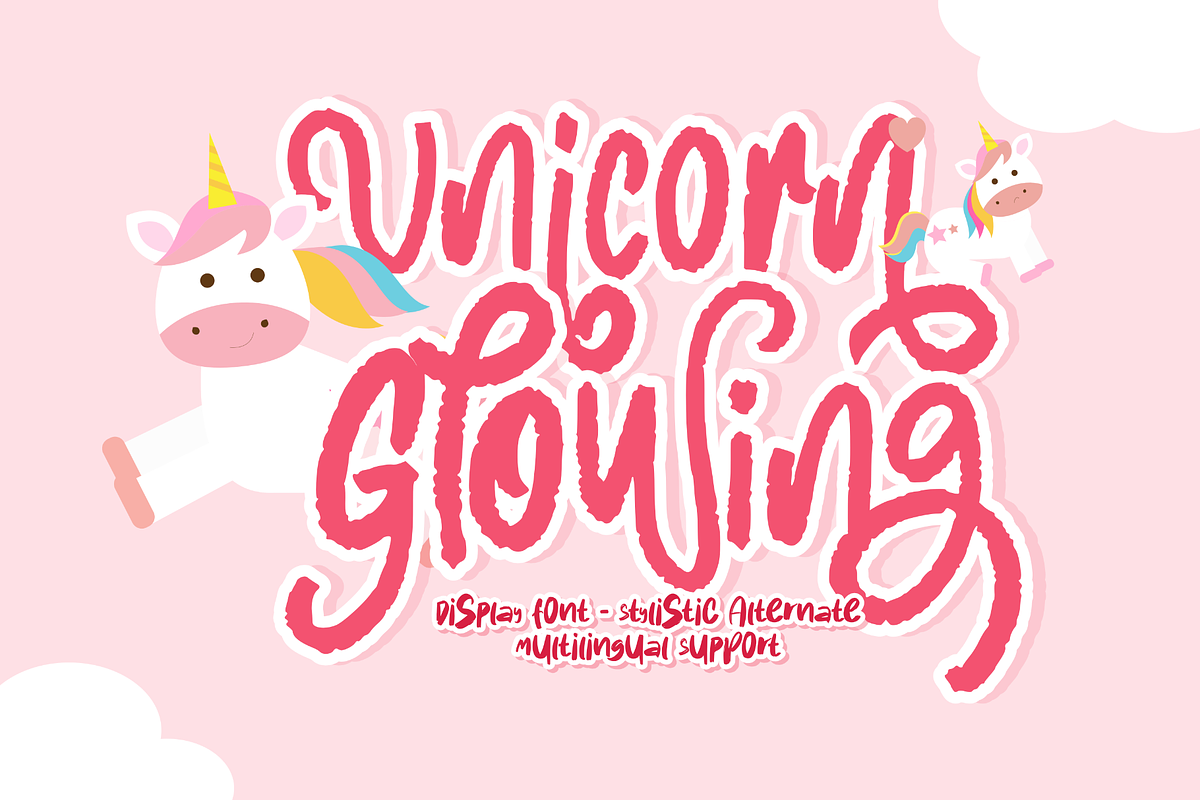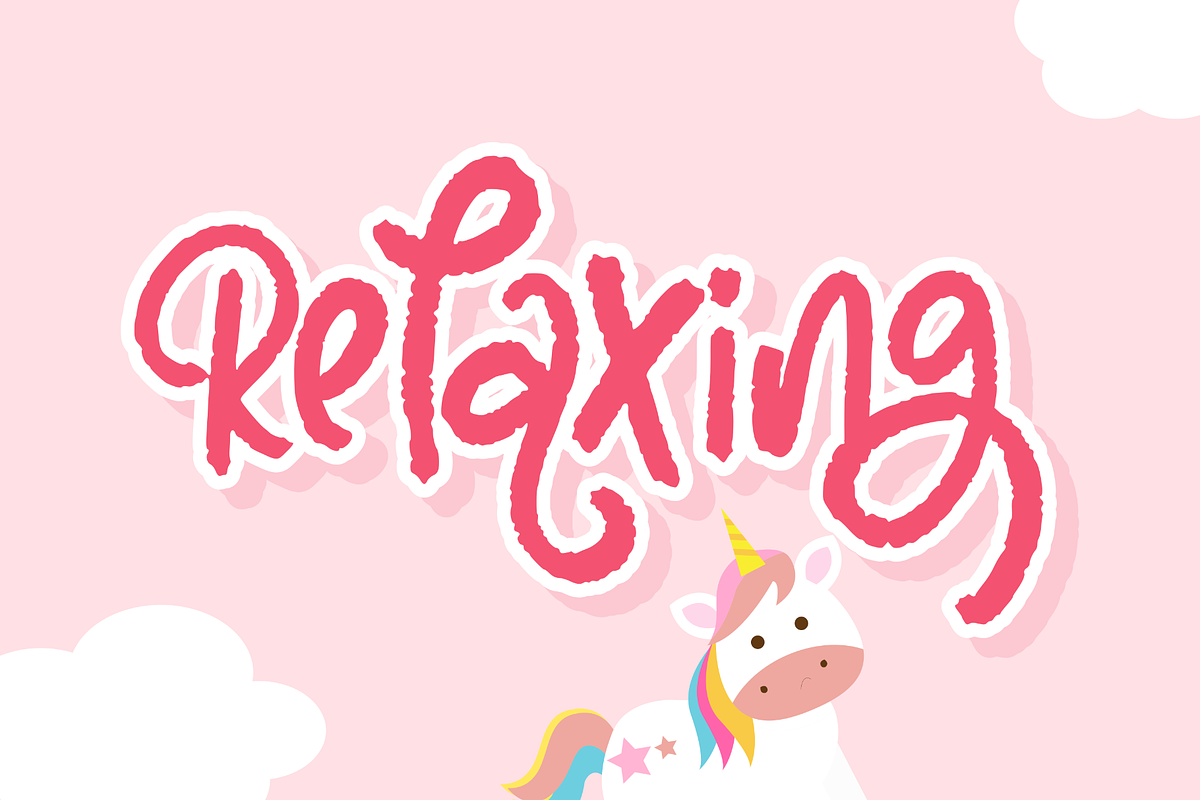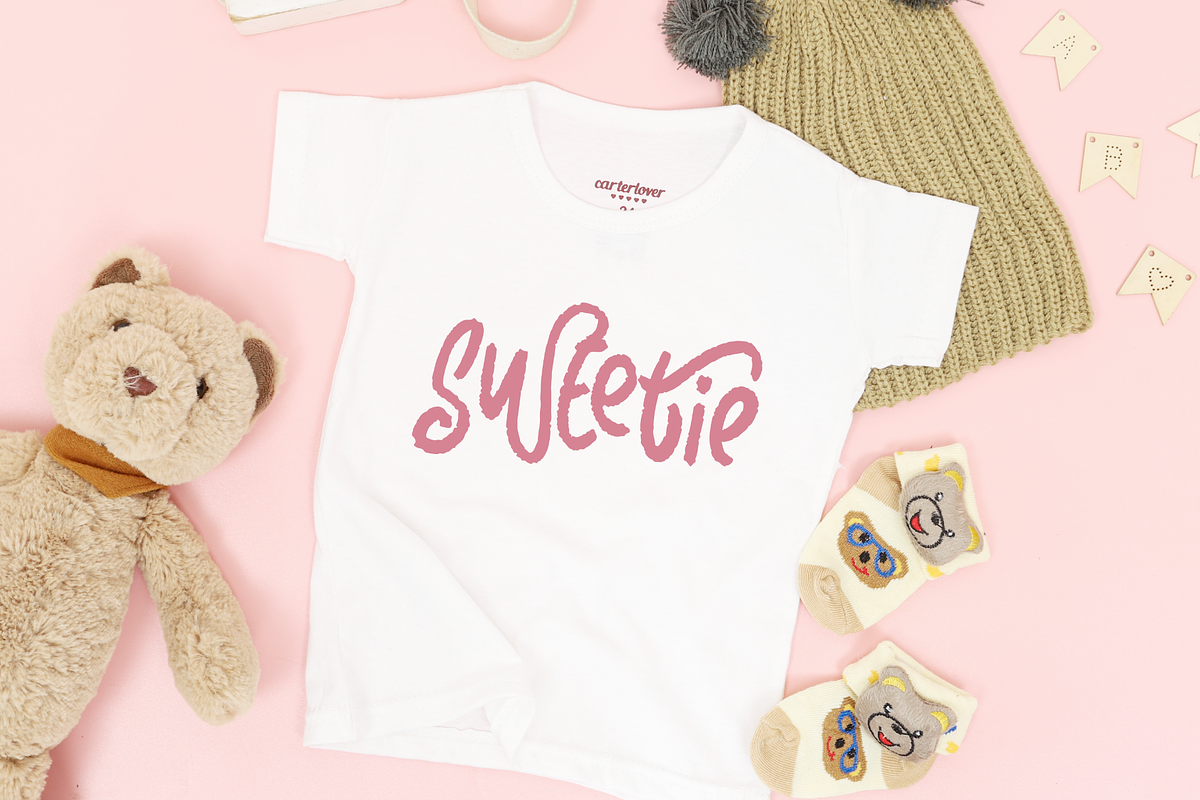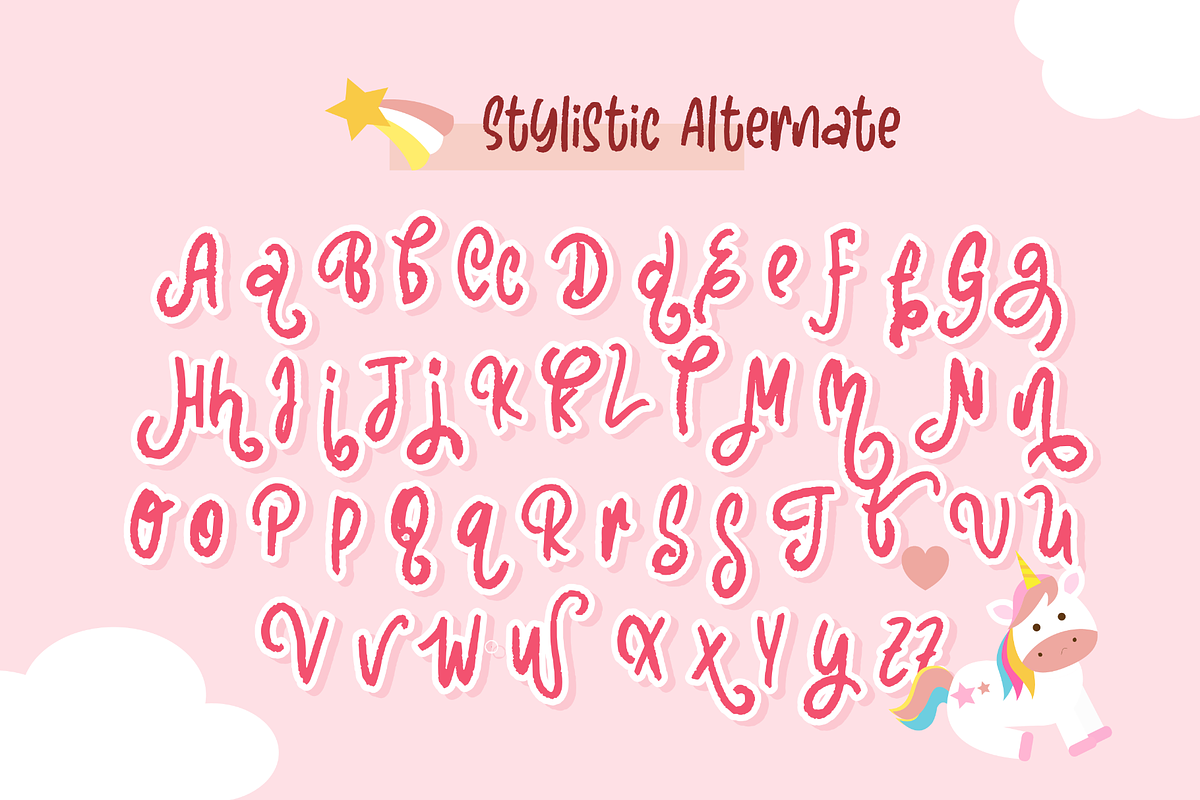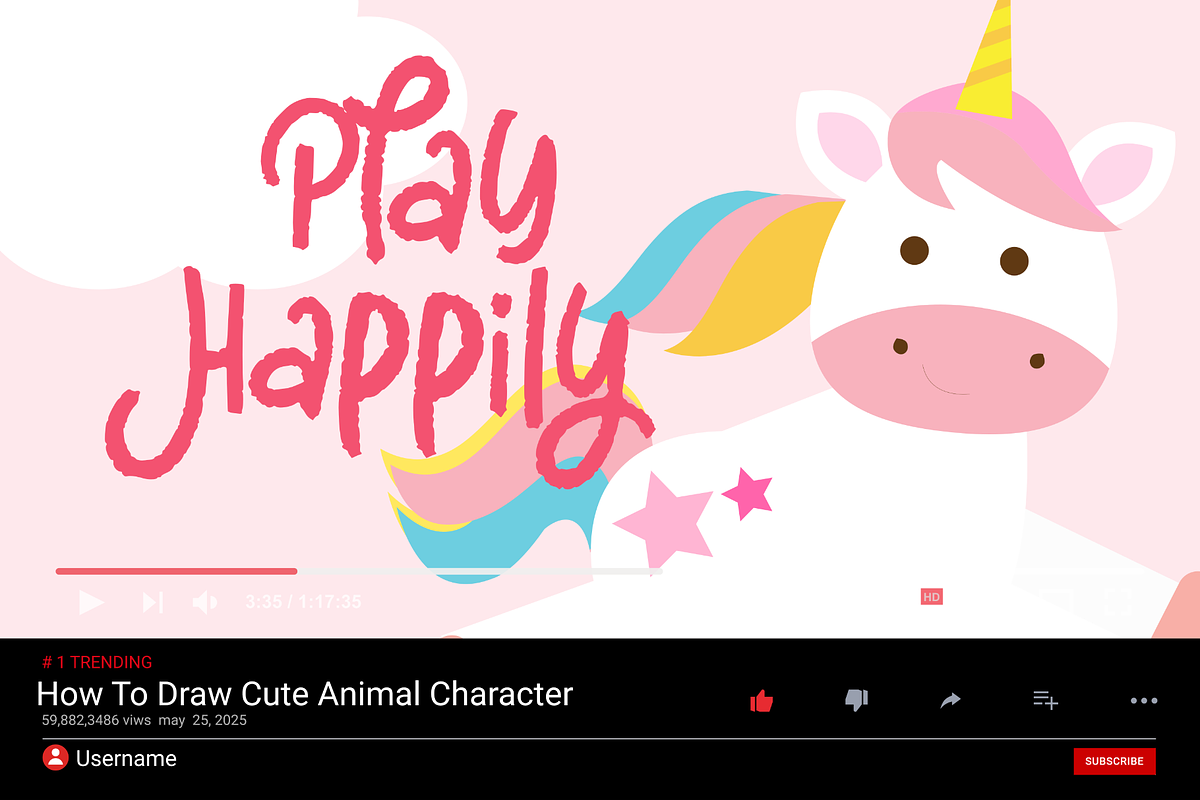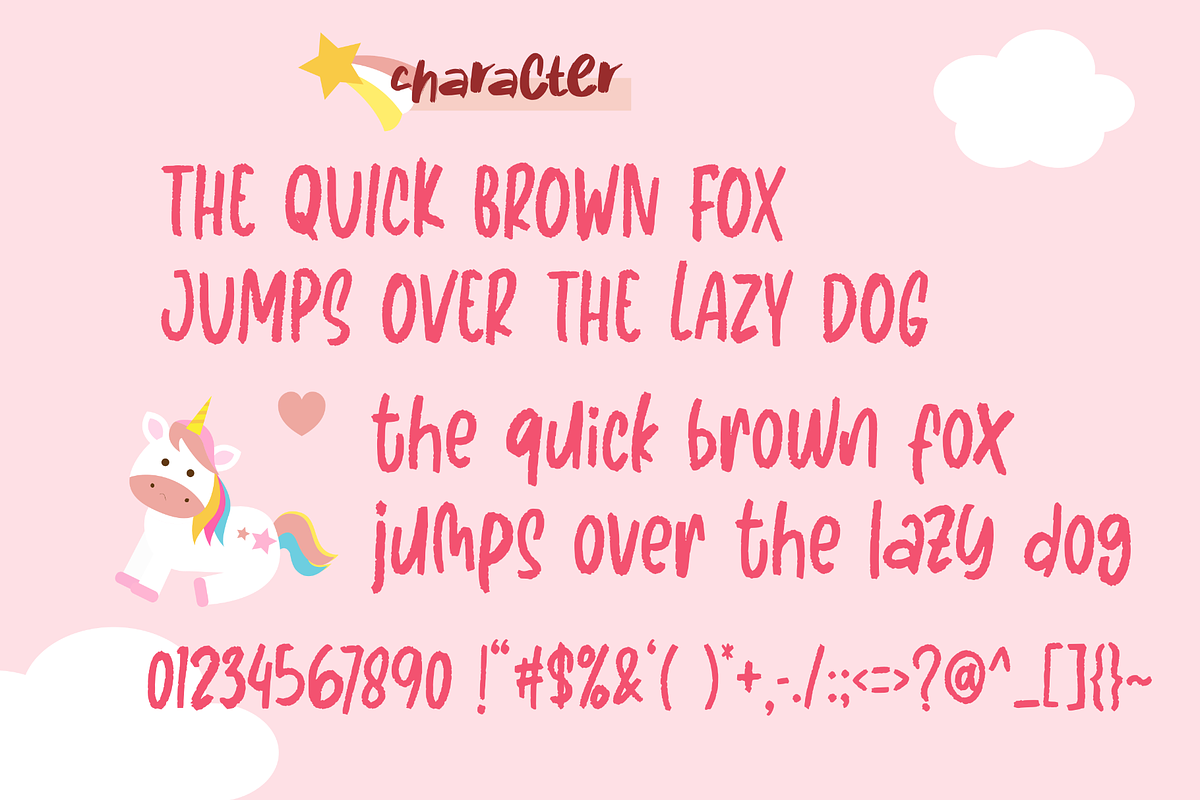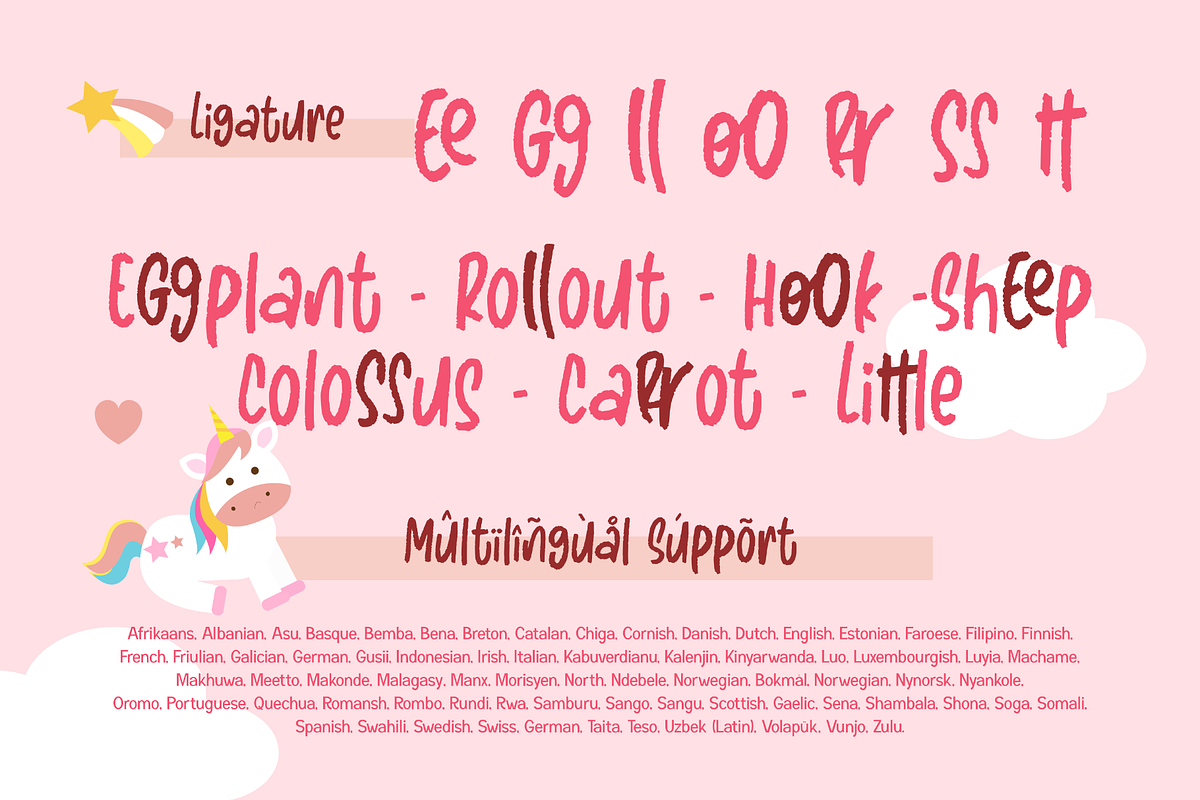
Unicorn Glowing
Unicorn Glowing is a Display font type that has a shining and stunning design. This font is perfect for designs with happy nuances and has a unique and funny alternative style. The letters in this font have a fantastic aura, making this font look very beautiful and fun .
This font is perfect for crafting designs and is great for creating logos, titles, and other graphic designs. "Unicorn Glowing" will help to add a fun and amazing feel to your designs and make them look very beautiful and unique.
If you want to create fun, cute, and stunning designs, then the "Unicorn Glowing" font is a great choice. This is a font that will help add a touch of magic to your designs and make them look really impressive.
- Styleistic Alternate
- Multilingual Accent